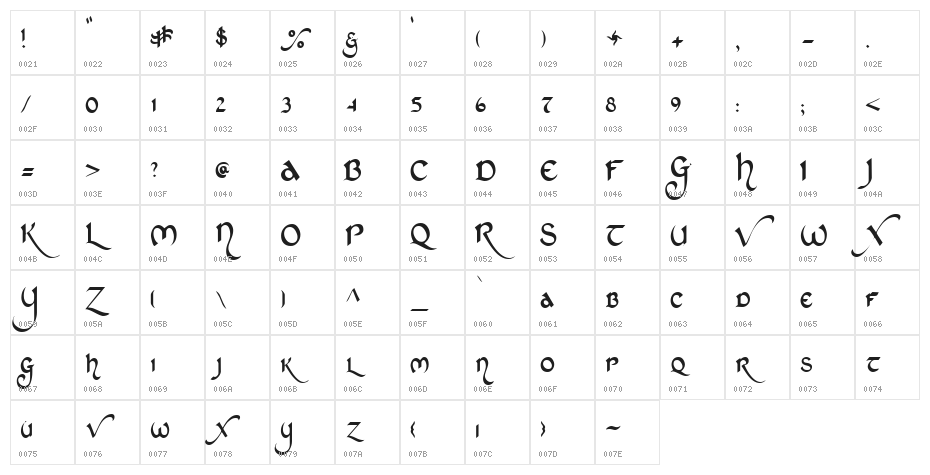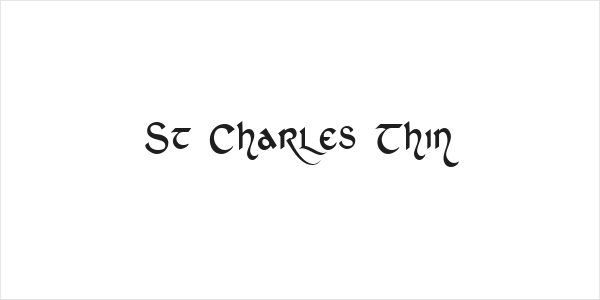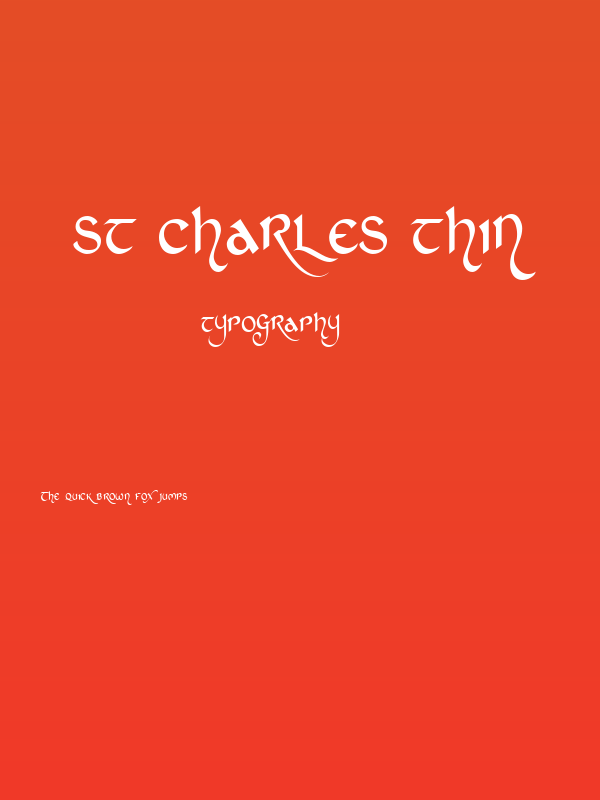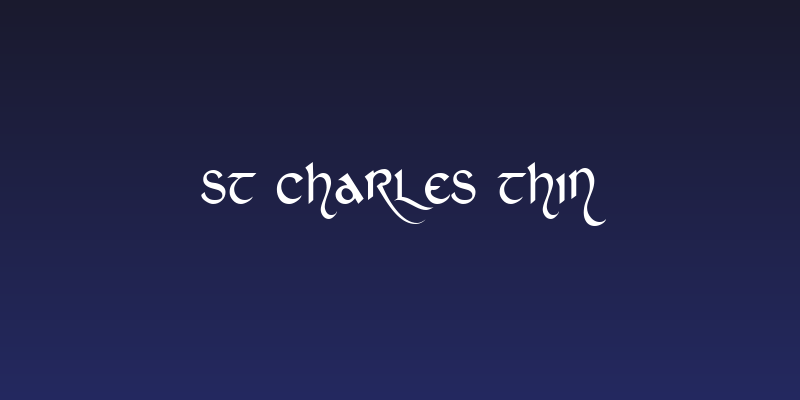
St Charles Thin Font
St Charles Thin Description
This font features a distinctive and elegant design, characterized by its sharp, angular lines and dramatic flourishes. The uppercase letters exhibit a bold presence with intricate curves and pointed serifs, giving it a medieval or gothic appearance. The lowercase letters maintain a consistent style, with unique loops and swashes that add a touch of sophistication. Numbers are designed with similar attention to detail, ensuring a cohesive look throughout. Special characters are ornate, enhancing the font's decorative appeal. Overall, this font combines traditional elements with a modern twist, making it suitable for a variety of creative projects.
Proposed ProjectsIdeal for branding, invitations, posters, and any project requiring a touch of elegance and historical flair.